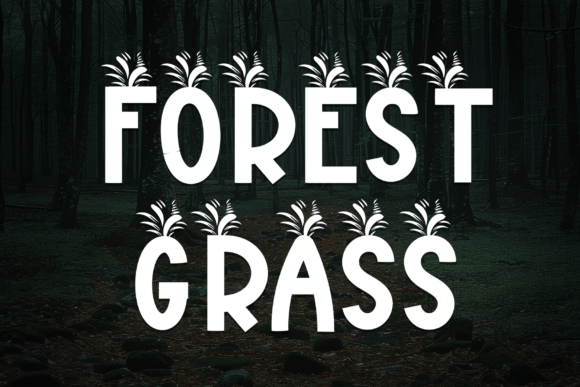
Introducing Forest Grass Font: The Perfect Blend of Modern Simplicity and Playful Charm
In the world of typography, fonts play a crucial role in conveying the tone and personality of a brand or design. With the numerous font options available, it can be challenging to find the perfect one that balances style, clarity, and approachability. However, if you’re looking for a font that embodies modern simplicity with a playful twist, look no further than Forest Grass Font. In this article, we’ll explore the features, benefits, and uses of Forest Grass Font, and why it’s becoming a popular choice among designers and brands.
What is Forest Grass Font?
Forest Grass Font is a casual display font that seamlessly blends modern simplicity with a playful, approachable vibe. Its clean shapes, soft edges, and well-balanced letterforms make it an ideal choice for designs that require a fresh and friendly touch. The font’s unique charm lies in its ability to capture the essence of relaxed design while maintaining clarity and style.
Key Features of Forest Grass Font
- Clean Shapes: Forest Grass Font features clean and simple shapes that give it a modern and sleek look.
- Soft Edges: The font’s soft edges add a touch of playfulness and approachability, making it perfect for designs that require a friendly tone.
- Well-Balanced Letterforms: The font’s letterforms are carefully crafted to ensure balance and harmony, making it easy to read and understand.
- Versatile Character: Forest Grass Font has a versatile character that makes it suitable for a wide range of design applications, from posters and branding to packaging and social media graphics.
- Eye-Catching Appeal: The font’s unique charm and playful vibe make it an eye-catching addition to any design project.
Benefits of Using Forest Grass Font
Forest Grass Font offers several benefits that make it an attractive choice for designers and brands. Some of the key benefits include:
- Improved Readability: The font’s clean shapes and well-balanced letterforms ensure excellent readability, even at smaller font sizes.
- Enhanced Personality: Forest Grass Font adds a fresh and friendly touch to any design project, making it perfect for brands that want to convey a playful and approachable personality.
- Versatility: The font’s versatility makes it suitable for a wide range of design applications, from print to digital media.
- Time-Saving: With Forest Grass Font, designers can save time and effort in creating custom fonts or searching for the perfect font for their project.
Uses of Forest Grass Font
Forest Grass Font is an incredibly versatile font that can be used in various design applications. Some of the most popular uses of the font include:
- Posters: Forest Grass Font is perfect for creating eye-catching posters that require a fresh and friendly touch.
- Branding: The font’s playful and approachable vibe makes it an excellent choice for branding projects that require a unique and memorable personality.
- Packaging: Forest Grass Font can add a touch of personality to packaging designs, making them stand out on store shelves.
- Social Media Graphics: The font’s clean shapes and soft edges make it perfect for creating engaging social media graphics that require a friendly and approachable tone.
Why Choose Forest Grass Font?
With so many font options available, why should you choose Forest Grass Font? Here are a few reasons why Forest Grass Font stands out from the crowd:
- Unique Personality: Forest Grass Font has a unique personality that sets it apart from other fonts.
- Excellent Readability: The font’s clean shapes and well-balanced letterforms ensure excellent readability.
- Versatility: Forest Grass Font is incredibly versatile and can be used in various design applications.
In conclusion, Forest Grass Font is an excellent choice for designers and brands looking for a font that blends modern simplicity with a playful, approachable vibe. Its clean shapes, soft edges, and well-balanced letterforms make it perfect for a wide range of design applications, from posters and branding to packaging and social media graphics. With its unique personality, excellent readability, and versatility, Forest Grass Font is sure to become a popular choice among designers and brands.
- What is Forest Grass Font? Forest Grass Font is a casual display font that blends modern simplicity with a playful, approachable vibe.
- What are the key features of Forest Grass Font? The font features clean shapes, soft edges, and well-balanced letterforms.
- What are the benefits of using Forest Grass Font? The font offers improved readability, enhanced personality, versatility, and time-saving.
- What are the popular uses of Forest Grass Font? The font is commonly used for posters, branding, packaging, and social media graphics.